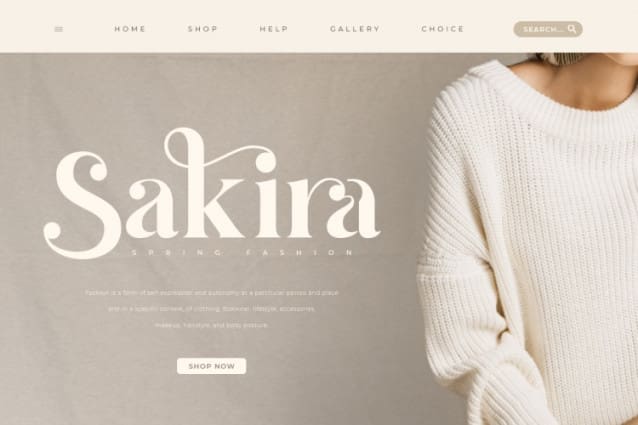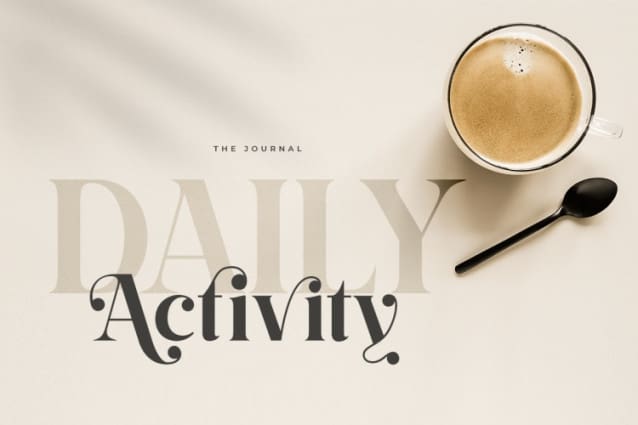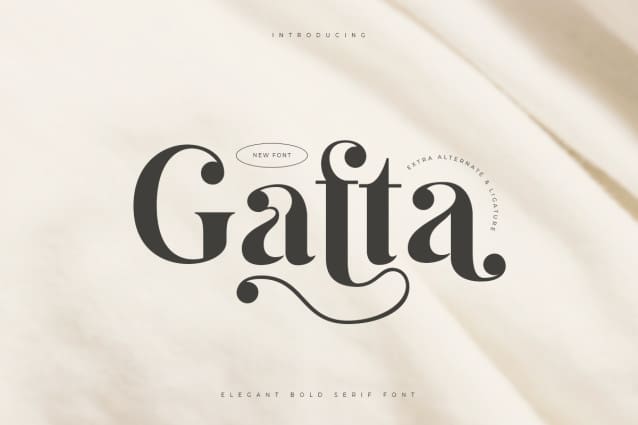
Gafta Font
Gafta Font – An Elegant Bold Serif font that we created special for elegant branding needs, with unique shape will be ready to add value of your brand. It so nice to leverage designer or product owner that need solutions to make their design look more stylish and modern. And specially for Gafta font, We prepared any characters to help you create unlimited variations for your creative needs.